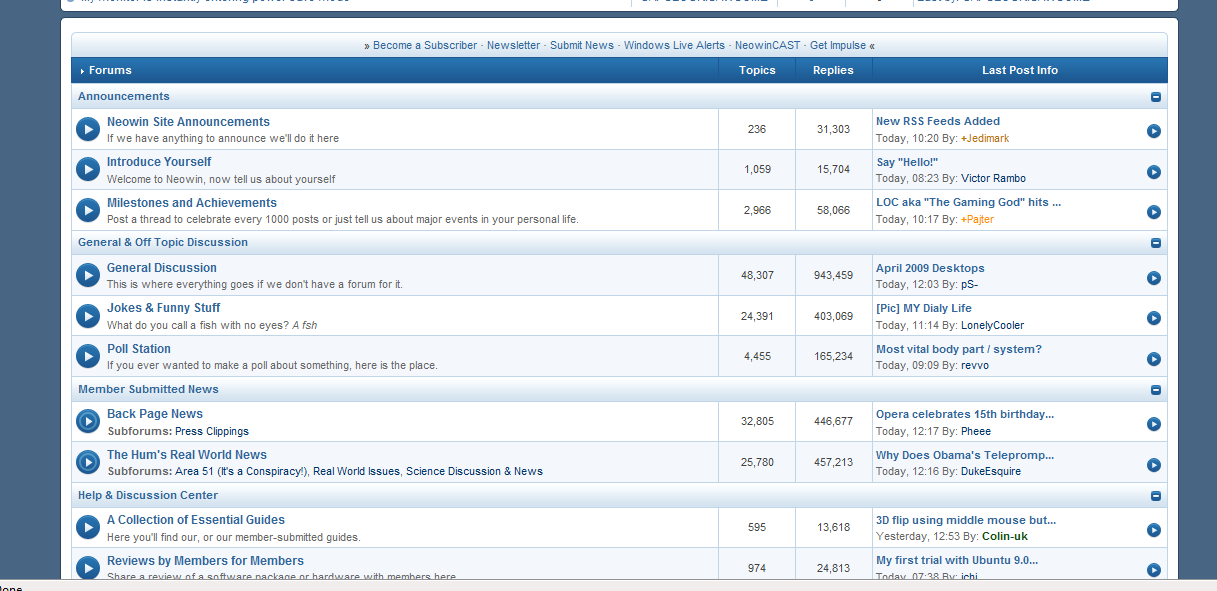
Chris-Gonzales Posted April 28, 2009 Share Posted April 28, 2009 I really like this one better then the old, bolded type. Crisp and clean. Hope it stays. EDIT: Just got an IPS driver error, could that be the cause? Link to comment Share on other sites More sharing options...
shockz Posted April 28, 2009 Share Posted April 28, 2009 Yeah, I noticed this too. Link to comment Share on other sites More sharing options...
Jimmy0 Posted April 28, 2009 Share Posted April 28, 2009 Changed for me too, seems to keep changing back and forth a bit though at the moment. Old one is better imo. Link to comment Share on other sites More sharing options...
Zoom7000 Posted April 28, 2009 Share Posted April 28, 2009 Yes, I definately hope we get the old font back too! Don't like the new one. :no: Link to comment Share on other sites More sharing options...
Chris-Gonzales Posted April 28, 2009 Author Share Posted April 28, 2009 Changed for me too, seems to keep changing back and forth a bit though at the moment.Old one is better imo. The old one is nice, but it feels dated to me. I know this font is used on the IPB classic/Pro skins. I know it would be possible to change the font for the board, but the question is whether or not the community wants it and if its worth the trouble. (given IPB 3 is near) Link to comment Share on other sites More sharing options...
Rob Veteran Posted April 28, 2009 Veteran Share Posted April 28, 2009 It's not deliberate. If it looks like the fonts have changed to Arial, scroll to the bottom and you should see an automatically-generated IPB error message which is screwing with the site stylings. Link to comment Share on other sites More sharing options...
The Canadian Posted April 28, 2009 Share Posted April 28, 2009 I keep running into IPS Driver errors on the site, and getting double posts within my post because of it...something is going on with the database and needs looking into; and the fonts have now changed to a smaller size on my end as well! Link to comment Share on other sites More sharing options...
vip Posted April 28, 2009 Share Posted April 28, 2009 I like this new font, seems smaller and more crisp... keep it! :D Link to comment Share on other sites More sharing options...
jonhapimp Posted April 28, 2009 Share Posted April 28, 2009 text is to damn small Link to comment Share on other sites More sharing options...
The Canadian Posted April 28, 2009 Share Posted April 28, 2009 It seems other sites are having a similiar database problem today with IPB & vBulletin. Link to comment Share on other sites More sharing options...
Kevin. Posted April 28, 2009 Share Posted April 28, 2009 It looks like the issue has been resolved, because the old fonts are back for me. Link to comment Share on other sites More sharing options...
The Canadian Posted April 28, 2009 Share Posted April 28, 2009 Back to small fonts for me.... Link to comment Share on other sites More sharing options...
DirtyLarry Veteran Posted April 28, 2009 Veteran Share Posted April 28, 2009 I actually like it! Anyway to keep it at this setting once it is fixed? Link to comment Share on other sites More sharing options...
Kevin. Posted April 28, 2009 Share Posted April 28, 2009 It looks like the issue has been resolved, because the old fonts are back for me. Link to comment Share on other sites More sharing options...
MightyJordan Posted April 28, 2009 Share Posted April 28, 2009 Thank god it isn't just me! :p I just noticed the font change, but I thought it was something up with Firefox. I like this new font. Looks cleaner. It's a bit thinner, but no biggie. Link to comment Share on other sites More sharing options...
Chasethebase Reporter Posted April 28, 2009 Reporter Share Posted April 28, 2009 Strange I only just starting getting it after I read this thread. I like the new font. Link to comment Share on other sites More sharing options...
DrewJW Posted April 28, 2009 Share Posted April 28, 2009 Same here, but nicer on the eye. Link to comment Share on other sites More sharing options...
MightyJordan Posted April 28, 2009 Share Posted April 28, 2009 It's gone back to normal for me now. :( Link to comment Share on other sites More sharing options...
therat Posted April 28, 2009 Share Posted April 28, 2009 Still getting the small font and very long page loading times. Link to comment Share on other sites More sharing options...
Kenji Posted April 28, 2009 Share Posted April 28, 2009 I like the smaller font better, it looks cleaner and less... meh Link to comment Share on other sites More sharing options...
Calum Veteran Posted April 28, 2009 Veteran Share Posted April 28, 2009 I noticed this earlier too. It's a shame it's caused by error and not actually a change as I love it :p It looks even better with GDI++ enabled :) I'm with DirtyLarry - any chance we could have this as a setting, please, once the problems are over? :happy: Link to comment Share on other sites More sharing options...
Chris-Gonzales Posted April 28, 2009 Author Share Posted April 28, 2009 I believe you can make the size at least 1 point bigger (somewhere within the IPB skin settings) Link to comment Share on other sites More sharing options...
scowl Posted April 28, 2009 Share Posted April 28, 2009 BOOOOO!!! I want the new font back. Link to comment Share on other sites More sharing options...